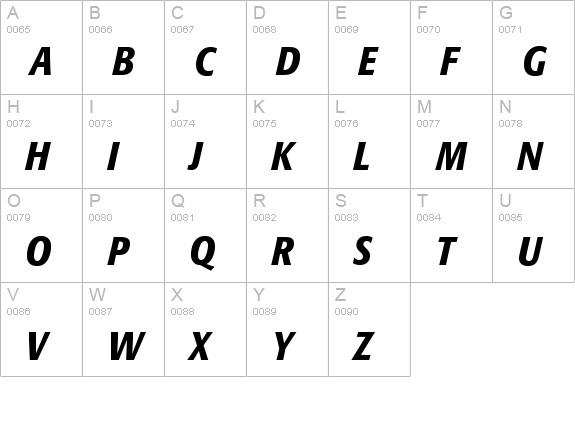
Formata Condensed BQ Medium Italic Font Details
Formata Condensed BQ Medium Italic is a balanced, medium-weight, condensed-width, italic variant in the Formata typeface family \xE2\x80\x94 well suited to sub-headlines, navigation, and balanced editorial work.
Formata Condensed BQ Medium Italic is a sleek and modern typeface that exudes sophistication and elegance. The medium weight combined with the italic style adds a touch of dynamism to any design project. Perfect for creating eye-catching headers, titles, and branding materials, this font is sure to make a bold statement. What's even better is that Formata Condensed BQ Medium Italic is available for free download at FontsMarket.com. This means you can easily add this stylish font to your collection without any cost. Don't miss out on the opportunity to enhance your designs with this versatile and striking typeface. Download Formata Condensed BQ Medium Italic today and see the difference it can make in your projects!